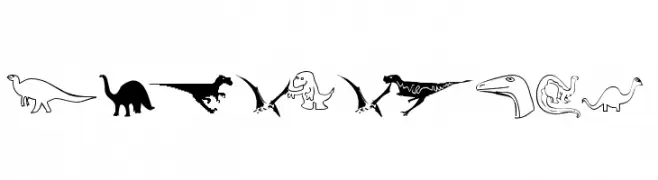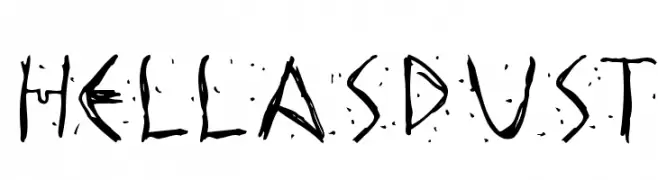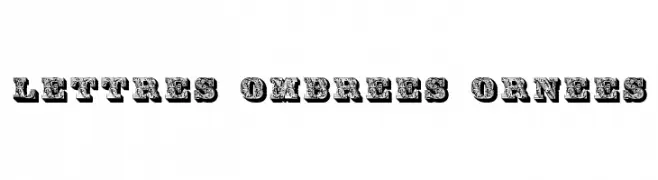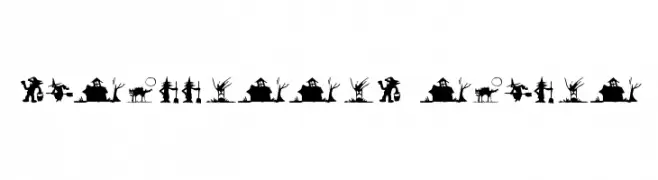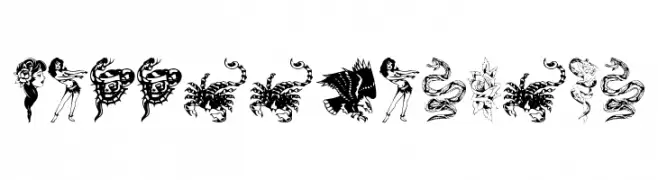
Ornate, shadowed font with intricate detailing and a vintage aesthetic.
A rugged, distressed font with an ancient, hand-drawn appearance.
( Fonts by The Scriptorium - Dave Nalle )
An ornate Gothic font with intricate details and historical flair.
( Fonts by Daniel Gauthier )
A decorative dingbat font with horror puzzle box illustrations.
A decorative, mail art-inspired graphic and text stamp collection with varied styles.
( Fonts by www.fontmenu.com )
A decorative font featuring diverse dinosaur silhouettes for thematic designs.
( Fonts by Daniel Gauthier )
A display font using vintage tattoo flash illustrations as glyphs.
( Fonts by www.fontmenu.com )
A decorative font with Halloween-themed silhouettes.